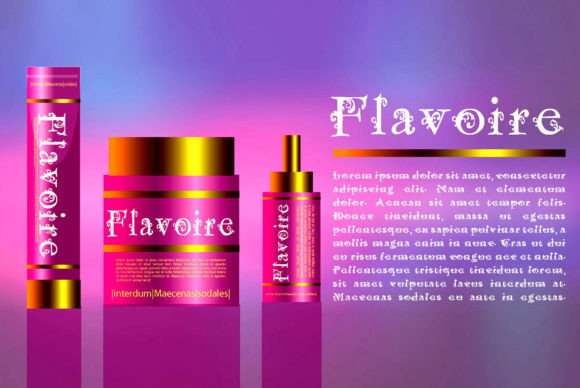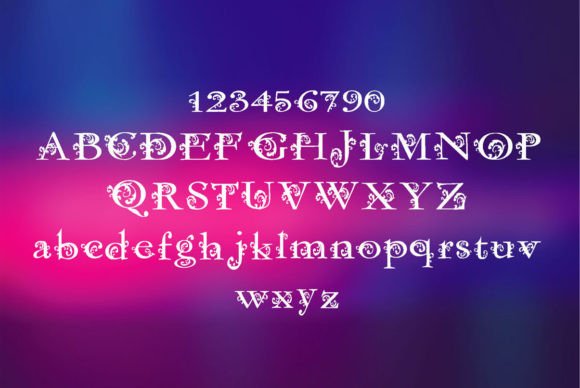
Introducing Flaviore Font: A Unique Victorian-Style Decorative Ornament
Are you a designer or crafter looking for a font that adds a touch of elegance and sophistication to your projects? Look no further than Flaviore Font, a stunning Victorian-style decorative ornamental font that’s perfect for creating vintage and retro-inspired designs. With its intricate design and style options, Flaviore Font is a great choice for anyone looking to add a touch of luxury and refinement to their work.
What is Flaviore Font?
Flaviore Font is a unique and beautiful Victorian-style decorative ornamental font that’s inspired by the intricate designs of the 19th century. Its ornate and elaborate style is reminiscent of traditional Victorian-era fonts, with intricate details and flourishes that add a touch of elegance and sophistication to any design.
Key Features of Flaviore Font
- Intricate Design: Flaviore Font features an intricate design with delicate details and flourishes that add a touch of luxury and refinement to any design.
- Style Options: With multiple style options, you can use Flaviore Font to create a range of different effects, from elegant and sophisticated to bold and dramatic.
- Vintage/Retro Style: Flaviore Font is perfect for creating vintage and retro-inspired designs, with a style that’s reminiscent of traditional Victorian-era fonts.
- Ornamental: Flaviore Font is an ornamental font, making it perfect for use in display text, headings, and titles.
Uses for Flaviore Font
Flaviore Font is a versatile font that can be used in a range of different projects, including:
- Graphic Design: Use Flaviore Font to add a touch of elegance and sophistication to your graphic designs, including brochures, flyers, and posters.
- Crafting: Flaviore Font is perfect for crafters who want to add a touch of luxury and refinement to their projects, including scrapbooking, card making, and DIY crafts.
- Digital Design: Use Flaviore Font to create stunning digital designs, including social media graphics, blog posts, and website headers.
Why Choose Flaviore Font?
There are many reasons why Flaviore Font is a great choice for designers and crafters, including:
- Unique Style: Flaviore Font has a unique and distinctive style that’s sure to set your designs apart from the crowd.
- Elegant and Sophisticated: Flaviore Font adds a touch of elegance and sophistication to any design, making it perfect for projects where you want to make a statement.
- Versatile: Flaviore Font can be used in a range of different projects, from graphic design to crafting and digital design.
Tips for Using Flaviore Font
Here are a few tips for getting the most out of Flaviore Font:
- Use it sparingly: Because of its ornate and elaborate style, Flaviore Font is best used sparingly, in headings, titles, and display text.
- Experiment with different styles: Flaviore Font comes with multiple style options, so don’t be afraid to experiment and try out different looks.
- Pair it with a simple font: To create a striking contrast, pair Flaviore Font with a simple, sans-serif font.
Flaviore Font is a stunning Victorian-style decorative ornamental font that’s perfect for designers and crafters who want to add a touch of elegance and sophistication to their projects. With its intricate design and style options, Flaviore Font is a great choice for anyone looking to create vintage and retro-inspired designs. Whether you’re a graphic designer, crafter, or digital designer, Flaviore Font is a versatile font that can be used in a range of different projects.